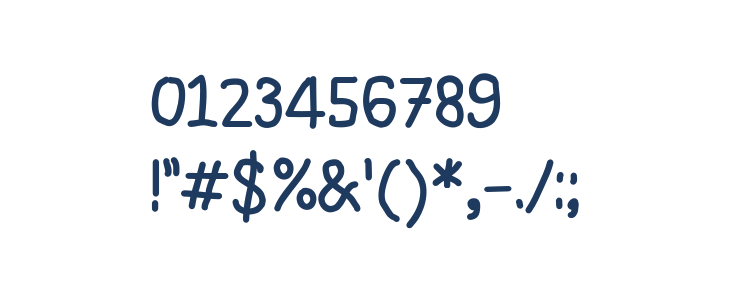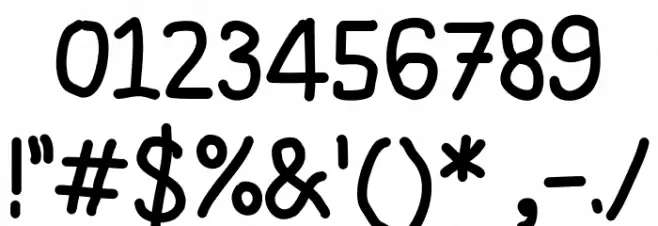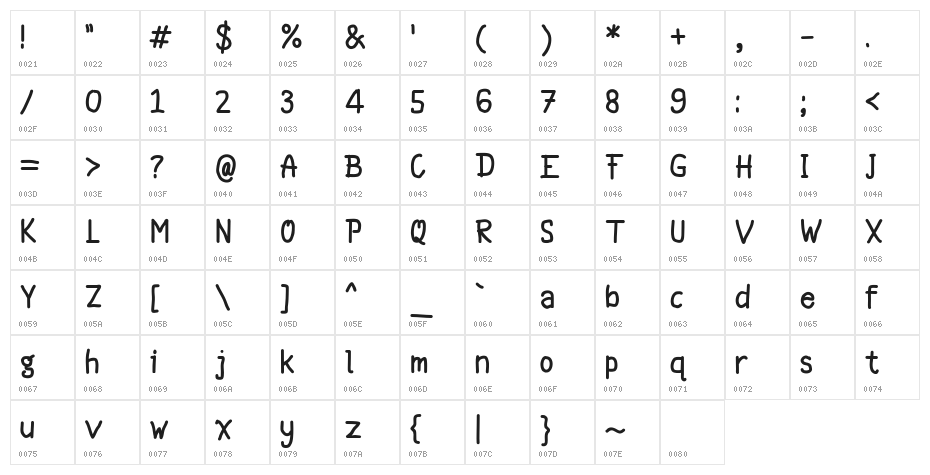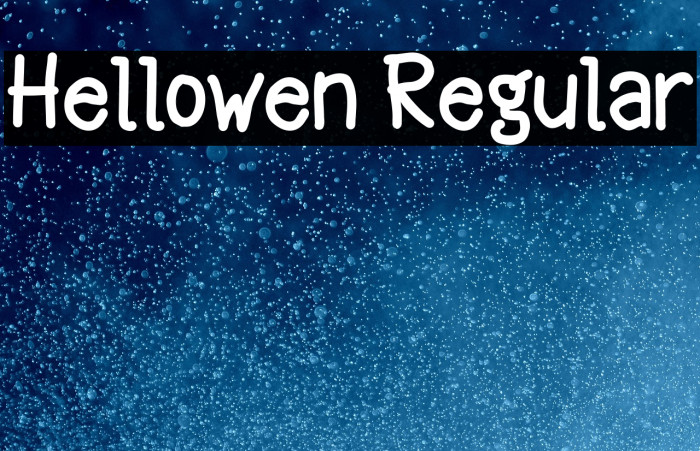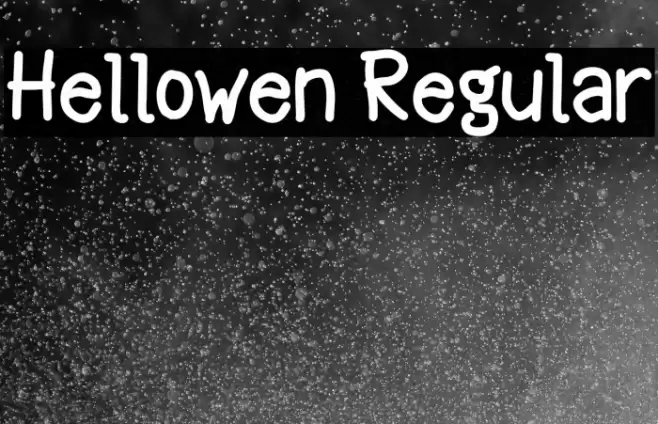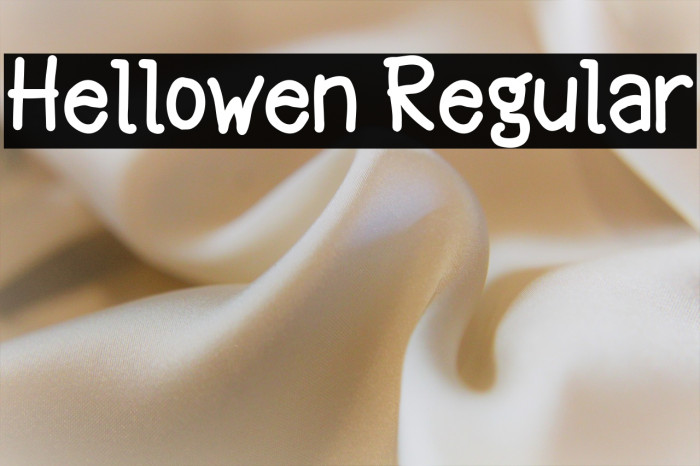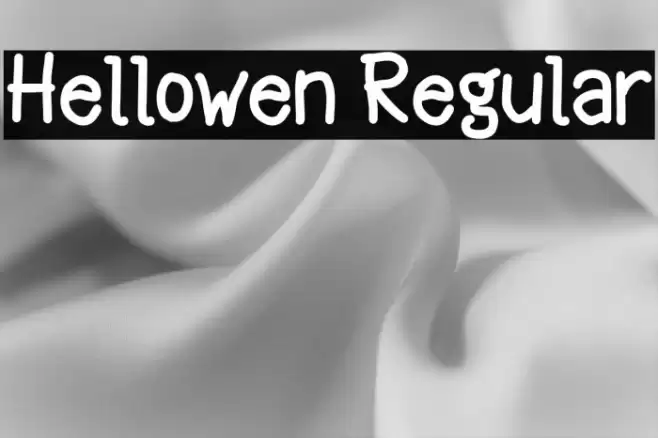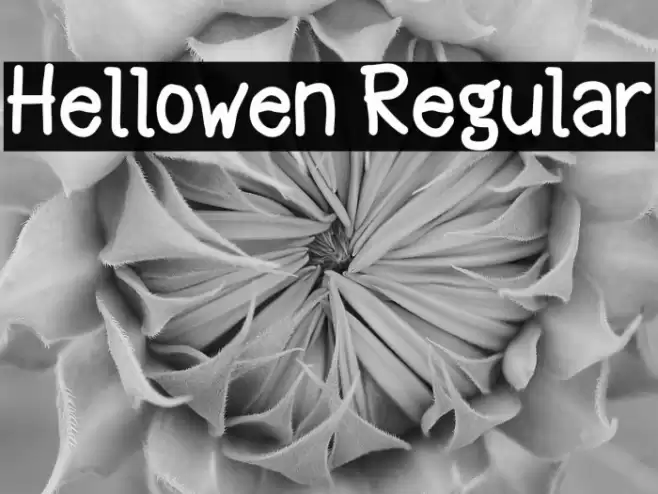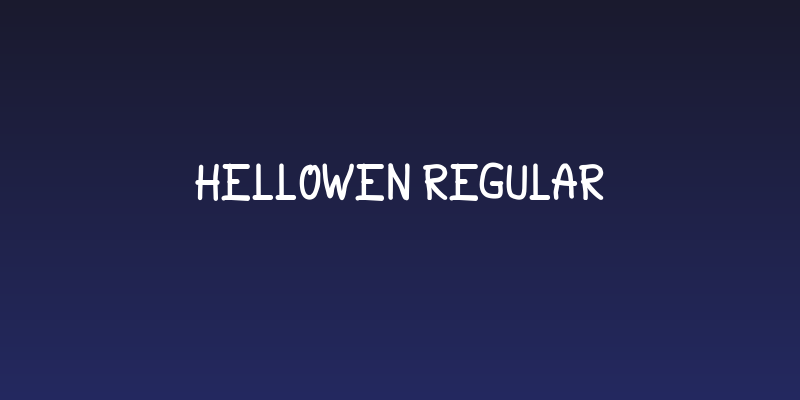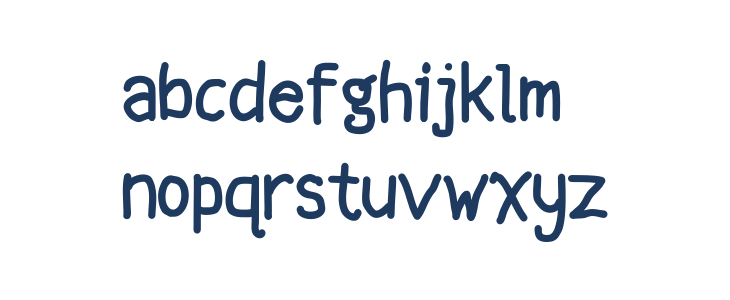
Hellowen Regular Font
Hellowen Regular Description
This font features a playful and casual handwritten style, characterized by its rounded edges and slightly irregular letterforms. The uppercase and lowercase letters maintain a consistent flow, giving it a friendly and approachable appearance. The numerals and special characters are designed to match the overall aesthetic, ensuring a cohesive look across all text. The font's informal style makes it suitable for projects that require a personal touch or a sense of whimsy. Its clear legibility and unique character make it versatile for various design applications.
| Proposed Projects | Ideal for greeting cards, children's books, casual branding, and social media graphics. |